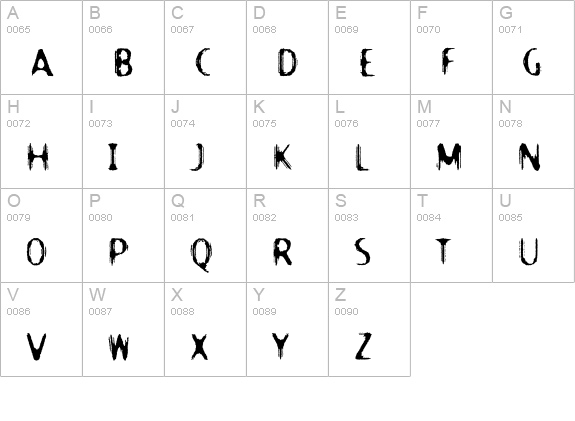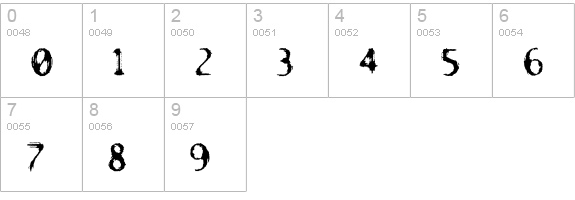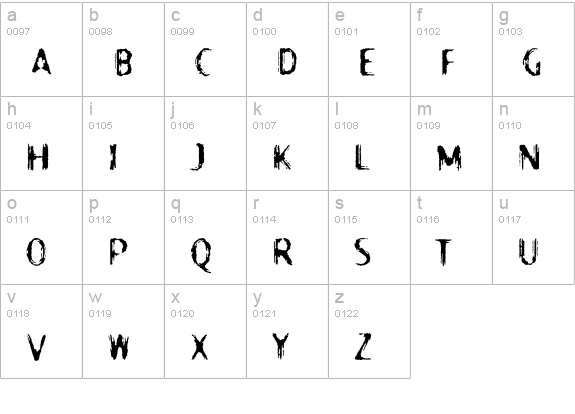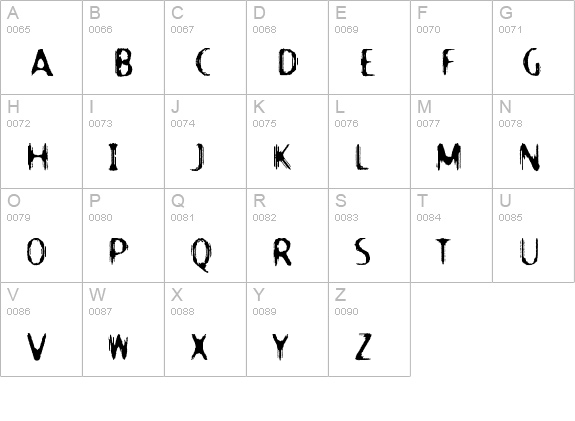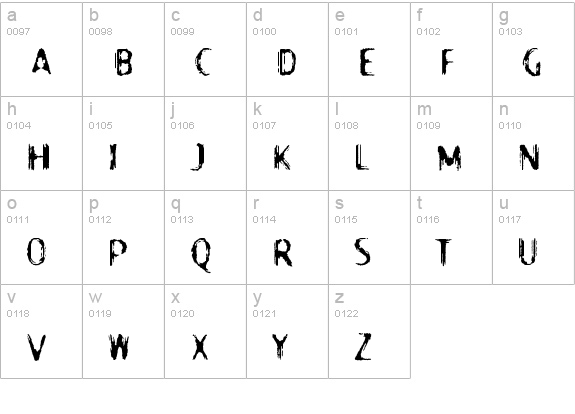
ReactorFB-Derelict Font Details
ReactorFB-Derelict font is a captivating and edgy typeface that instantly grabs attention with its bold and futuristic design. This font exudes a sense of mystery and intrigue, making it perfect for projects that require a unique and unconventional touch. With ReactorFB-Derelict font, you can effortlessly add a touch of rebelliousness to your designs. Its striking and angular letterforms are reminiscent of a forgotten era, showcasing a distressed and decayed aesthetic that adds a raw and gritty feel to any project. This font is not only visually stunning, but it also offers incredible versatility. Whether you're working on a poster, logo, album cover, or website, ReactorFB-Derelict font will elevate your design to new heights. Its eye-catching appearance is bound to leave a lasting impression on your audience. The best part? ReactorFB-Derelict font is freely available to download at FontsMarket.com. This means that you can unleash your creativity without worrying about any additional costs. It's a font that truly embodies the spirit of freedom and accessibility. So, if you're looking to add a touch of rebelliousness and uniqueness to your designs, look no further than ReactorFB-Derelict font. Download it today from FontsMarket.com and let your creativity run wild.